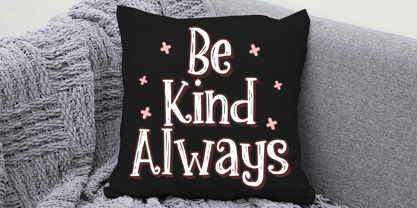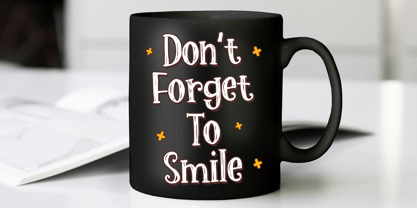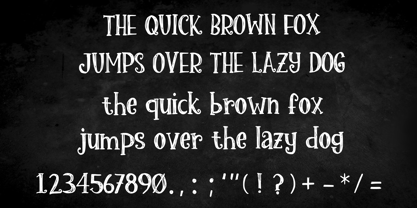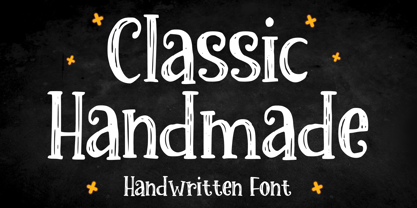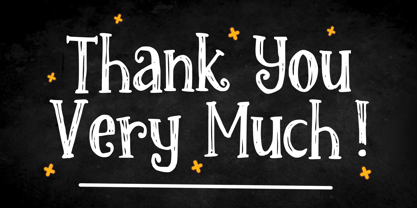
Classic Handmade
The Classic Handmade Font Family was designed by Gabriel Valentinus and published by Mvmet. Classic Handmade contains 1 styles. More about this family
Introducing Classic Handmade, a captivating retro display font inspired by the playful energy of vintage comics, cartoons, and classic lettering. This font is designed to elevate your creative projects to remarkable heights. Perfectly tailored for a variety of applications, Classic Handmade shines in snappy sticker designs, eye-catching t-shirt prints, stunning logo concepts, captivating magazine or book covers, and lively comic or cartoon illustrations. With its unique character and charm, Classic Handmade is the essential ingredient to infuse your designs with an irresistibly cool flair, making it ideal for branding, editorial work, and more!